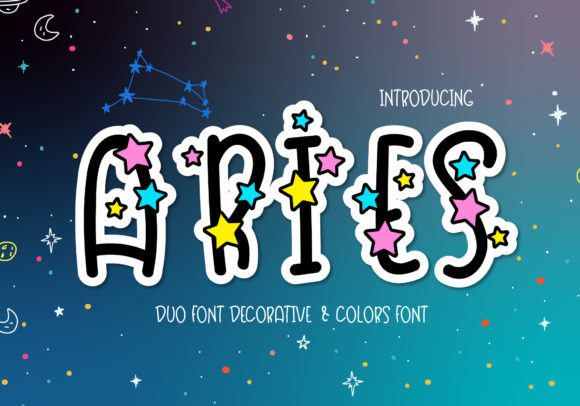
Introducing the Aries Font, a playfully decorative font family designed to bring a touch of charm to your creative projects. Crafted with precision by BB Type Studios and optimized for e-commerce platforms, this font offers an array of benefits that will leave you smitten.
With its whimsical and delightful style, the Aries Font instantly captivates hearts, making it the perfect choice for projects that demand a lighthearted and cheerful vibe. Its meticulously crafted details and smooth curves add a touch of elegance to any design, whether you're creating logos, book covers, birthday cards, greeting cards, or other captivating creations.
Immerse yourself in the endless possibilities that await you with the Aries Font. Its versatility shines through, allowing you to effortlessly transform your ideas into visually stunning masterpieces. Whether you're a seasoned designer or just starting out, the Aries Font will ignite your imagination and empower you to express yourself in unique and enchanting ways.
Step into a world of creativity and charm with the Aries Font. Its playful energy and infectious cheerfulness will leave you feeling inspired and joyful. Embrace the beauty of this font and witness the transformation it brings to your designs. Unleash your imagination and let the Aries Font guide you on an artistic journey unlike any other.